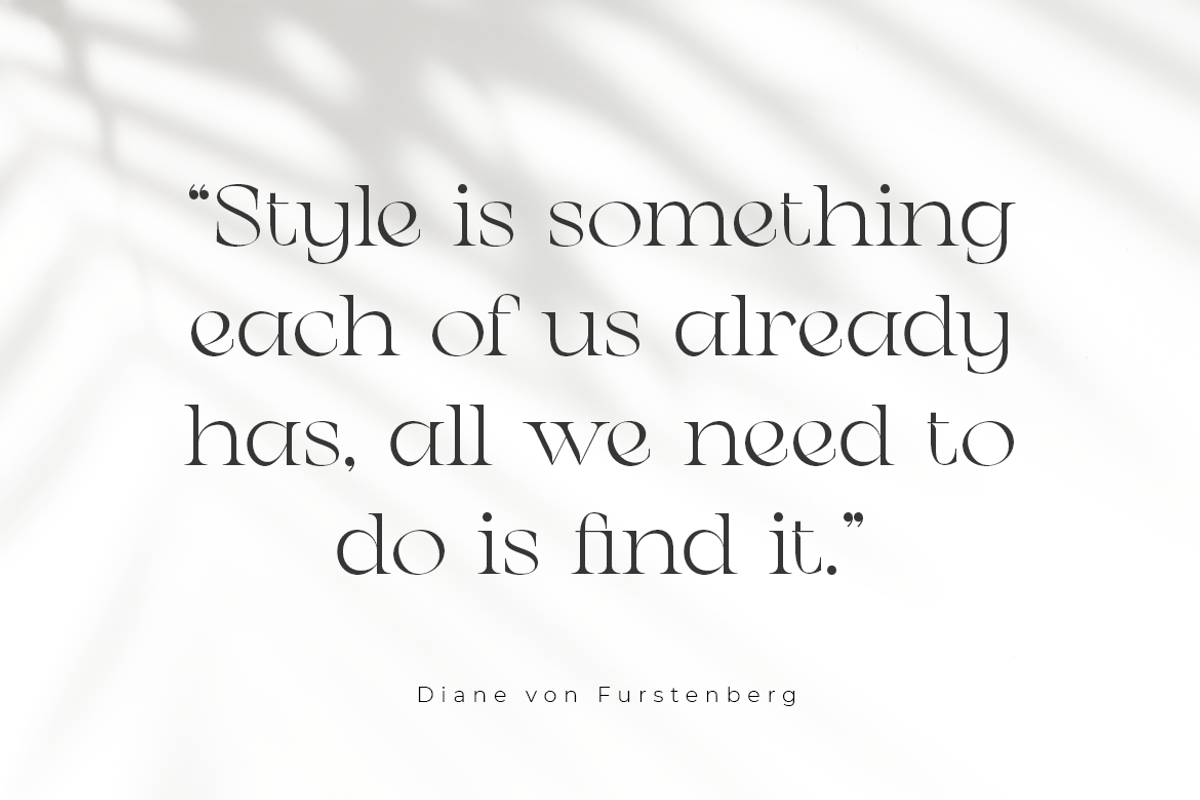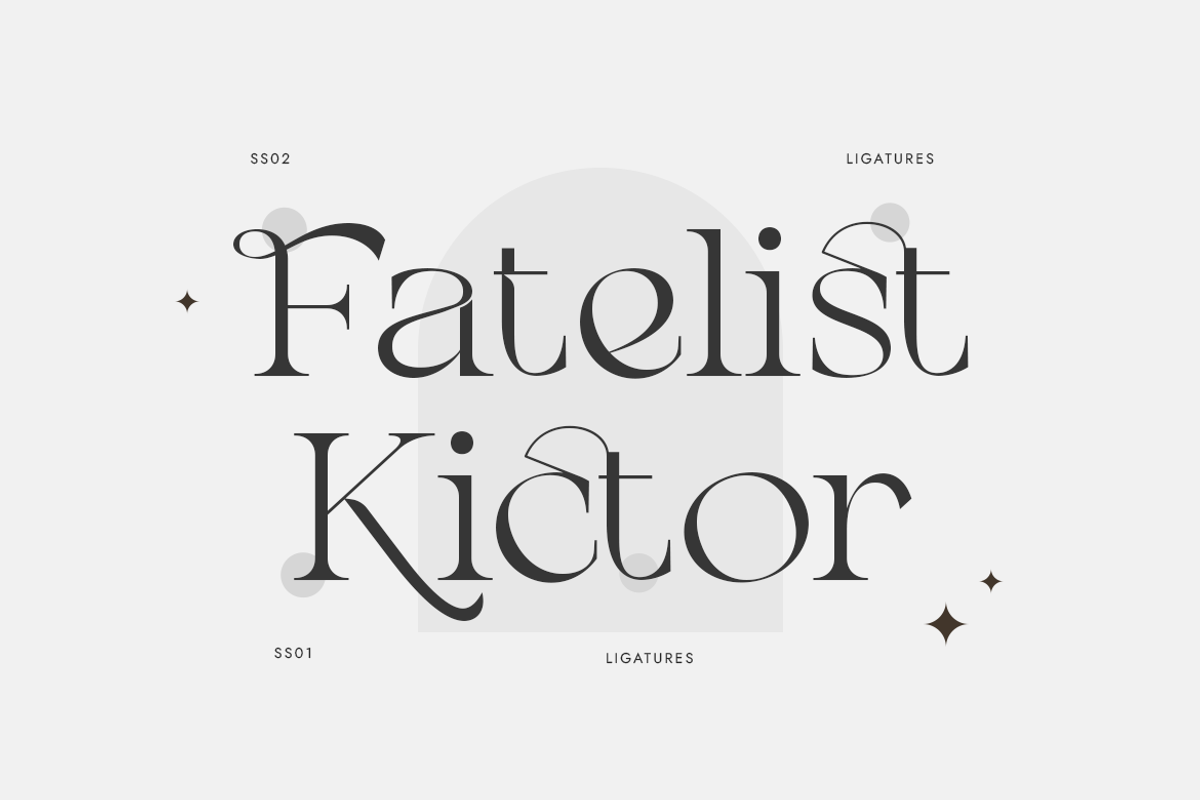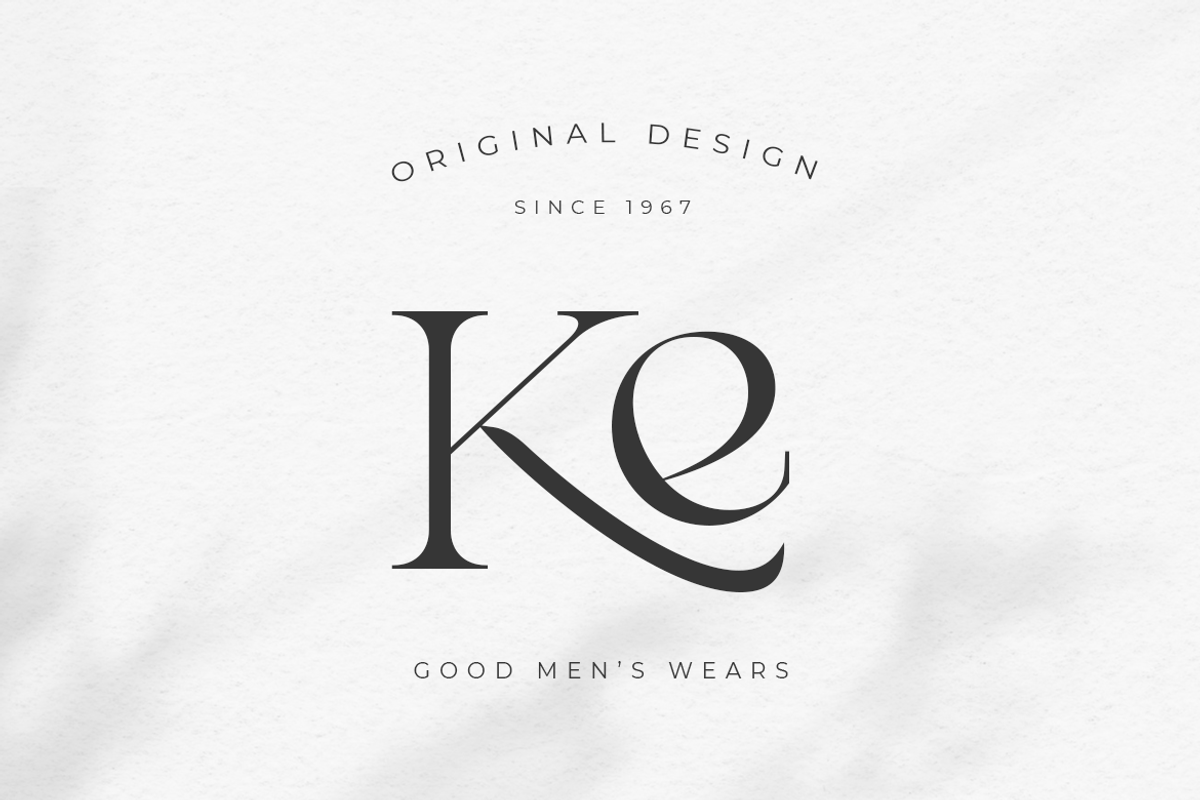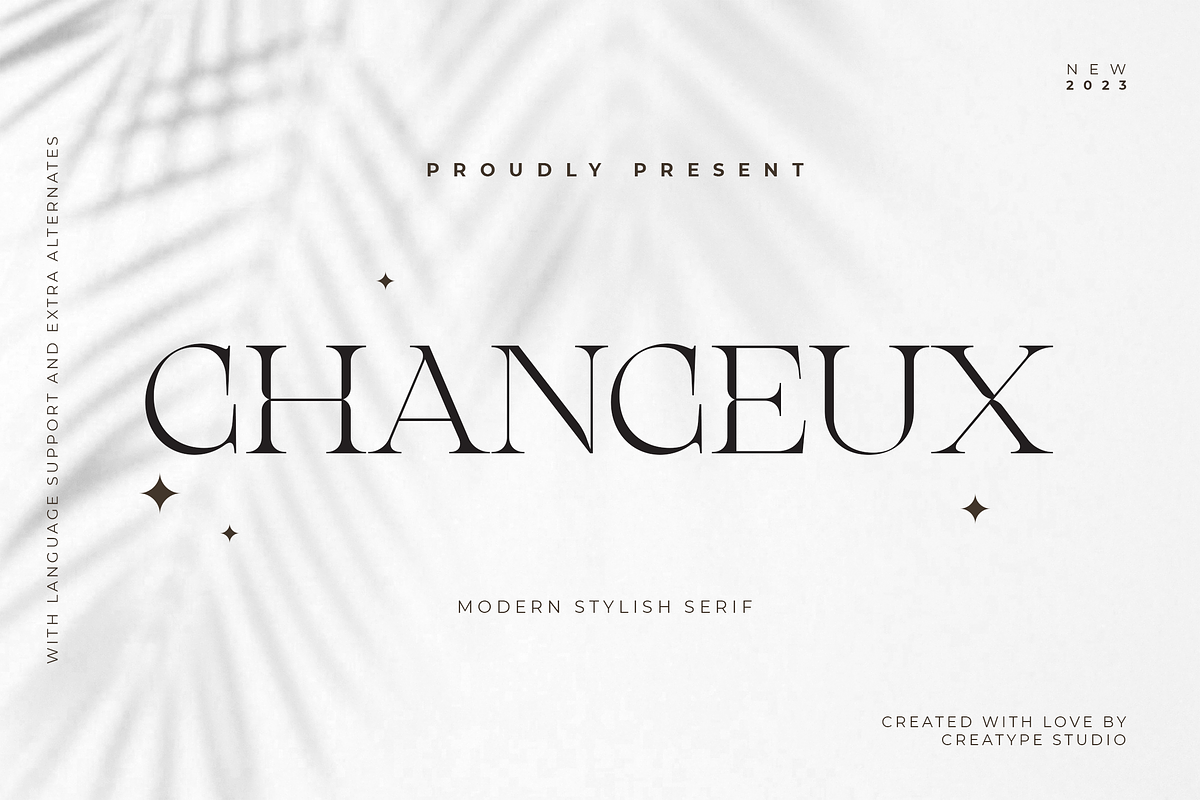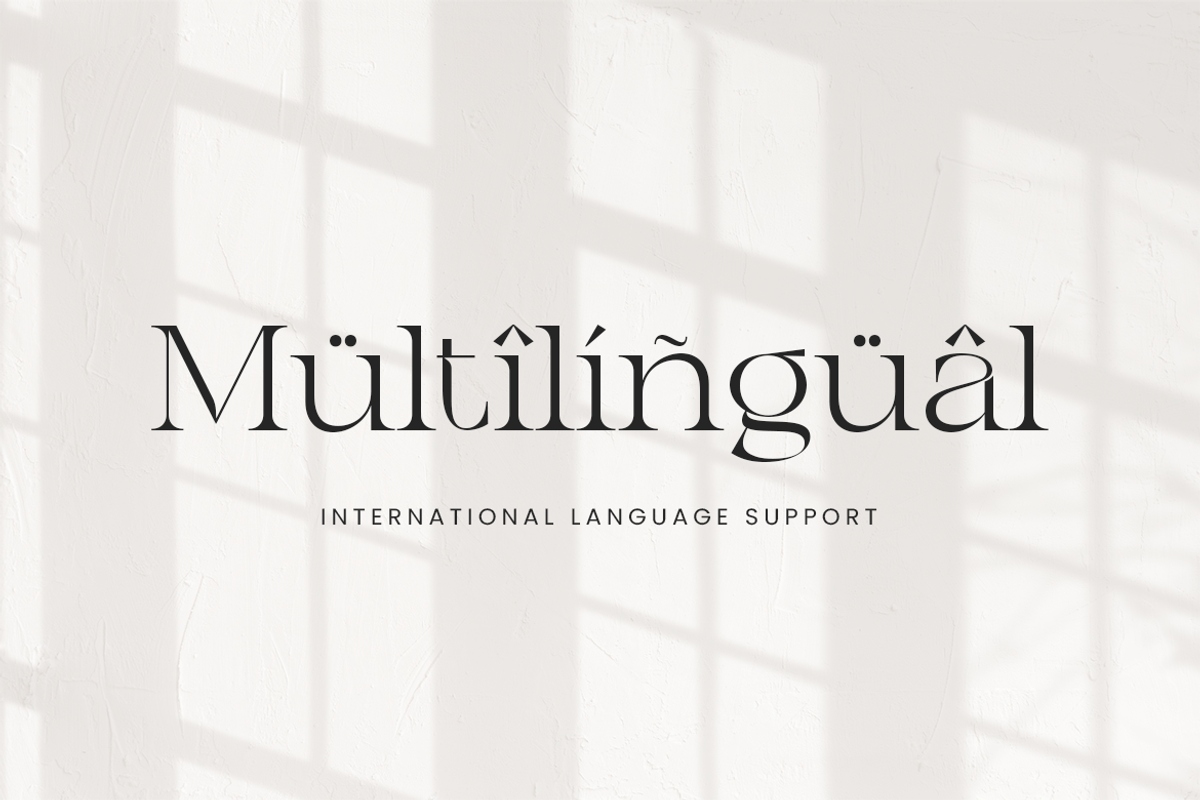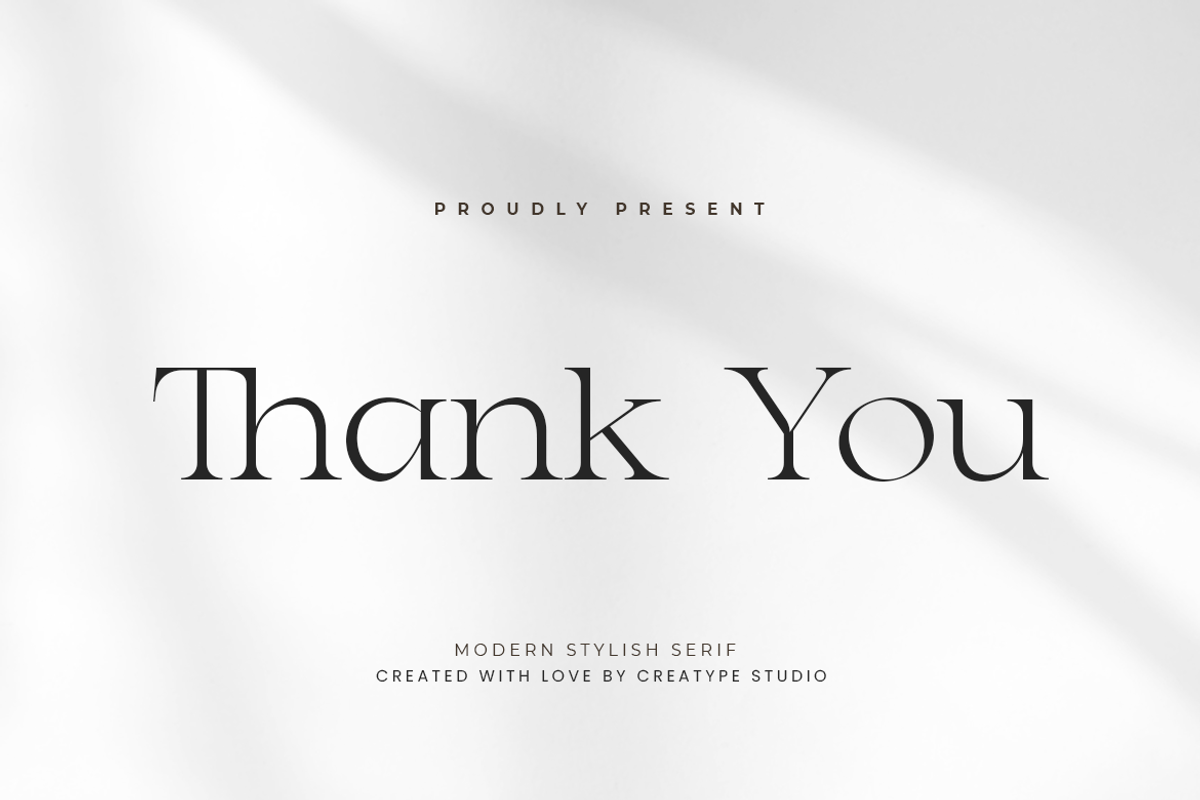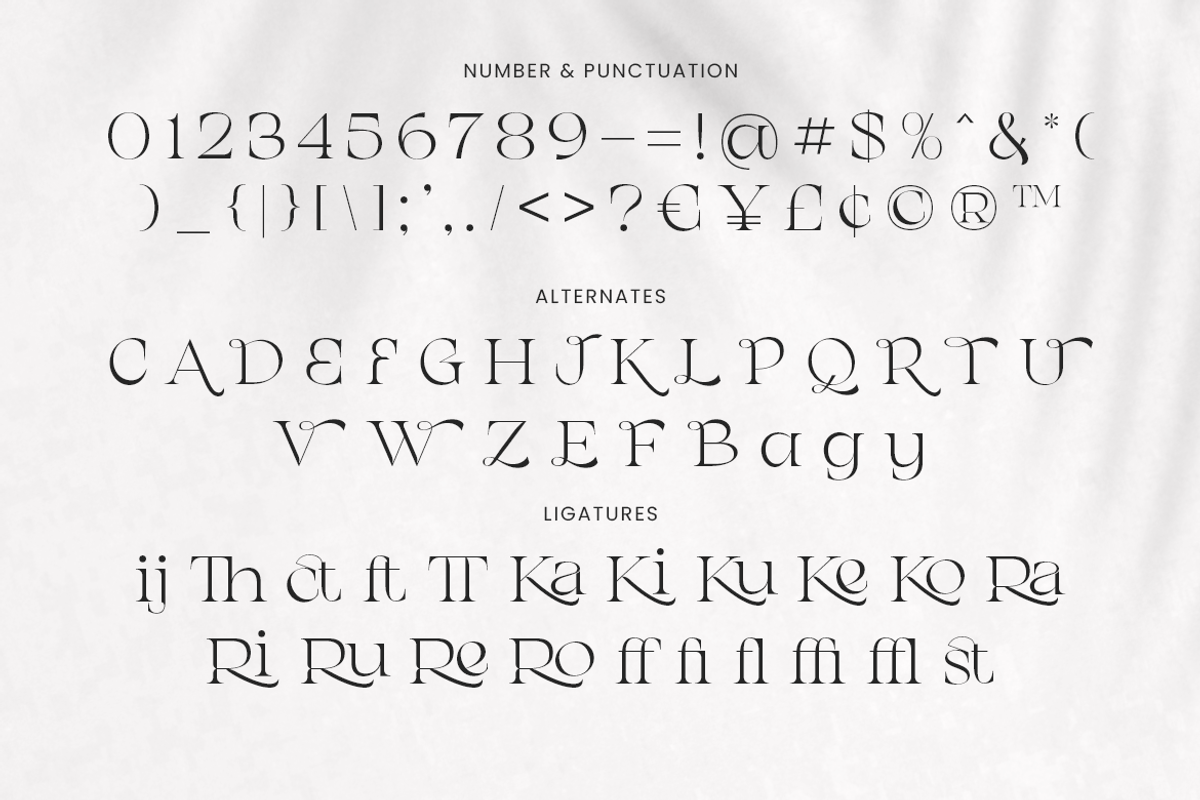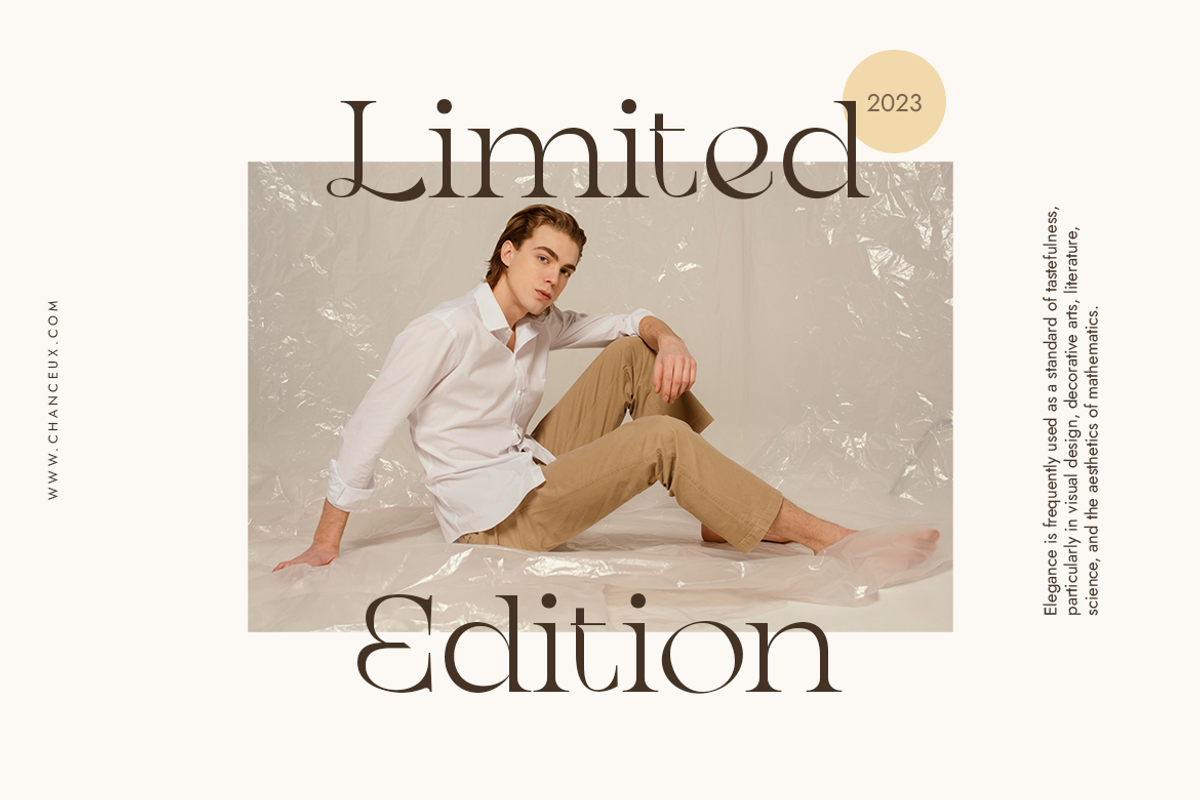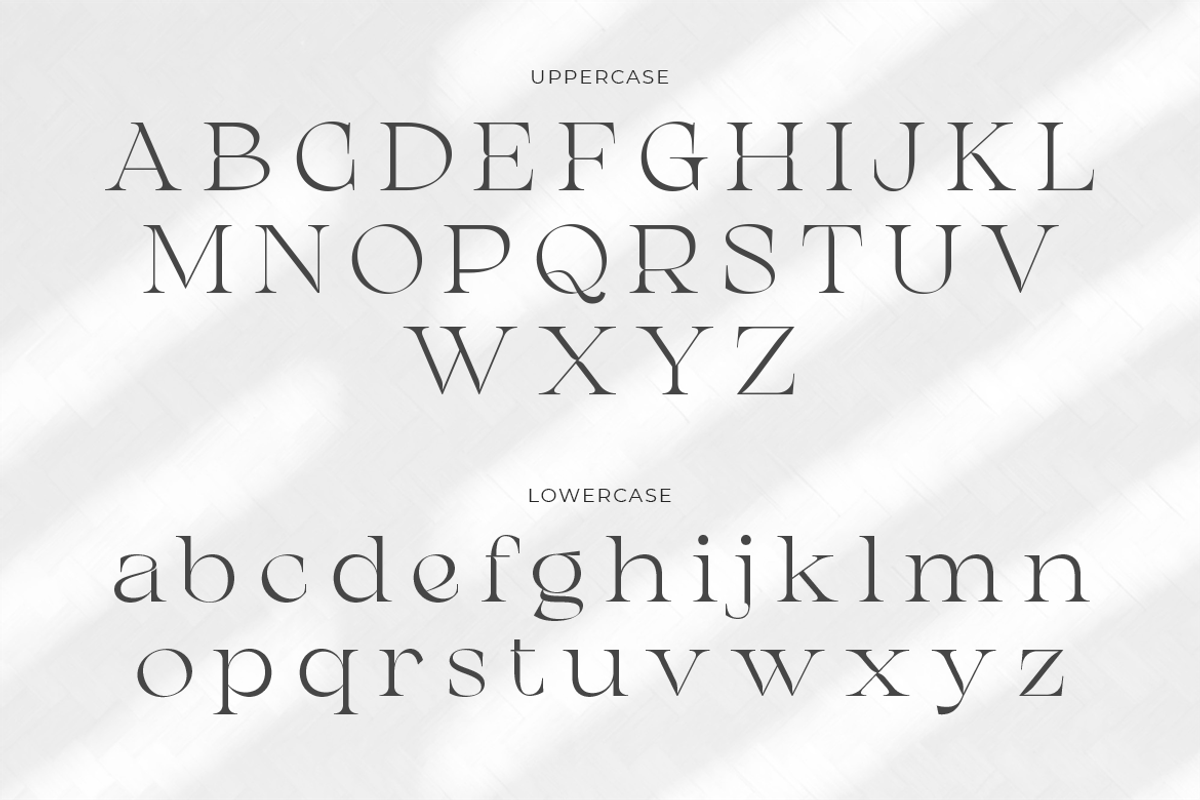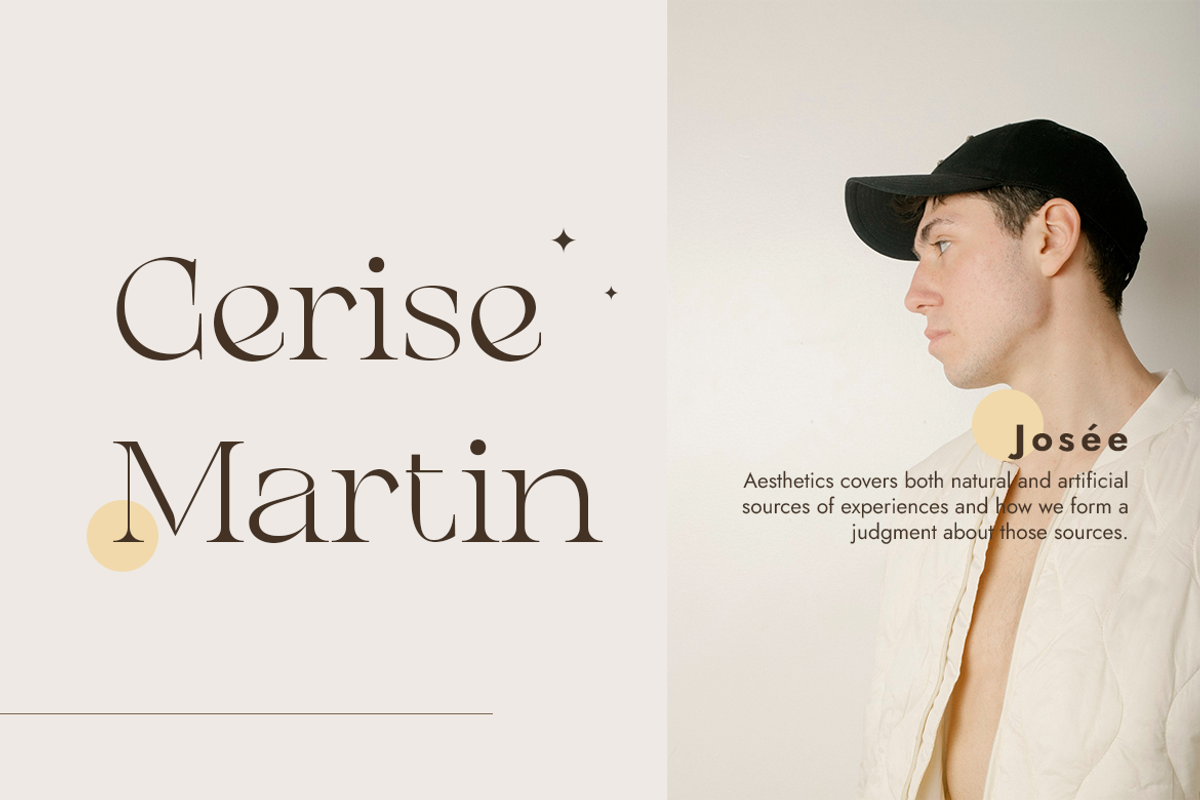
Chanceux Modern Stylish Serif
Chanceux, the Modern Stylish Serif typeface, elevates any design project with its refined and polished look, lending a touch of class and elegance to your work.
Chanceux is perfect for branding projects, logos, wedding designs, social media posts, advertisements, product packaging, product designs, label, photography, watermark, invitation, stationery, and any projects that need handwriting taste.
- Ligature & Alternate
- Fonts include multilingual support for; Afrikaans, Albanian, Czech, Danish, Dutch, English, Estonian, Finnish, French, German, Hungarian, Italian, Latvian, Lithuanian, Norwegian, Polish, Portuguese, Slovak, Slovenian, Spanish, Swedish.